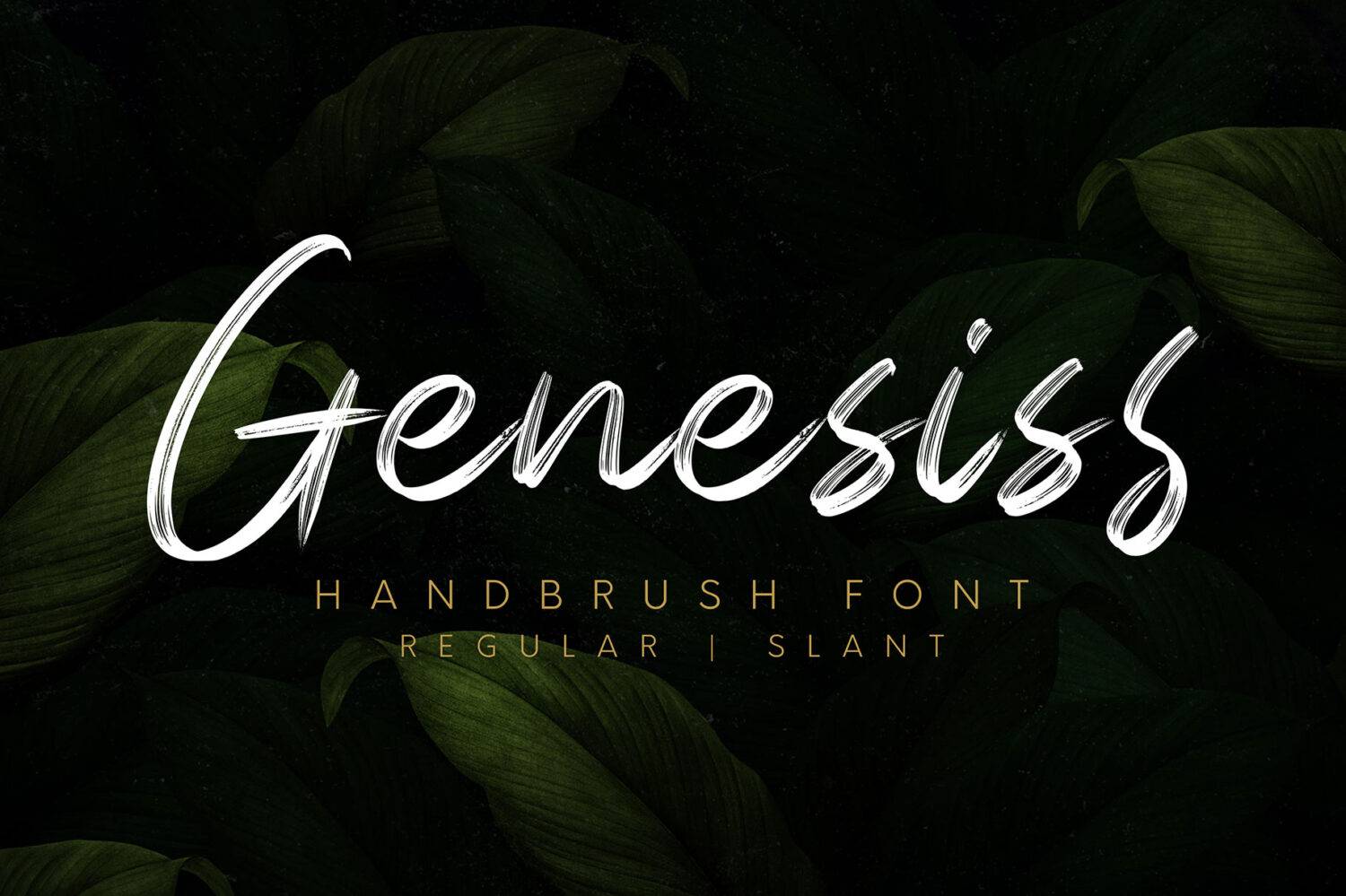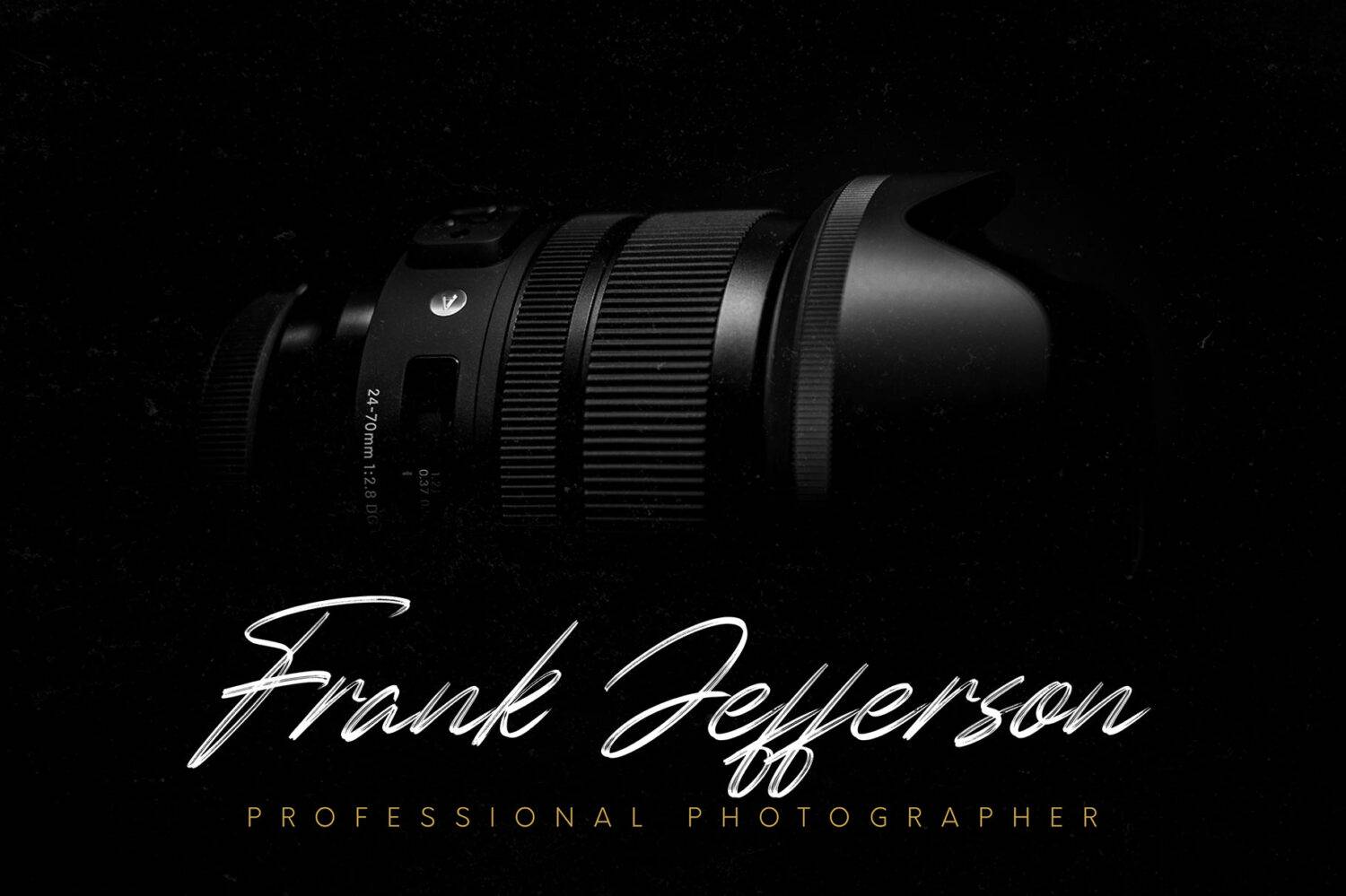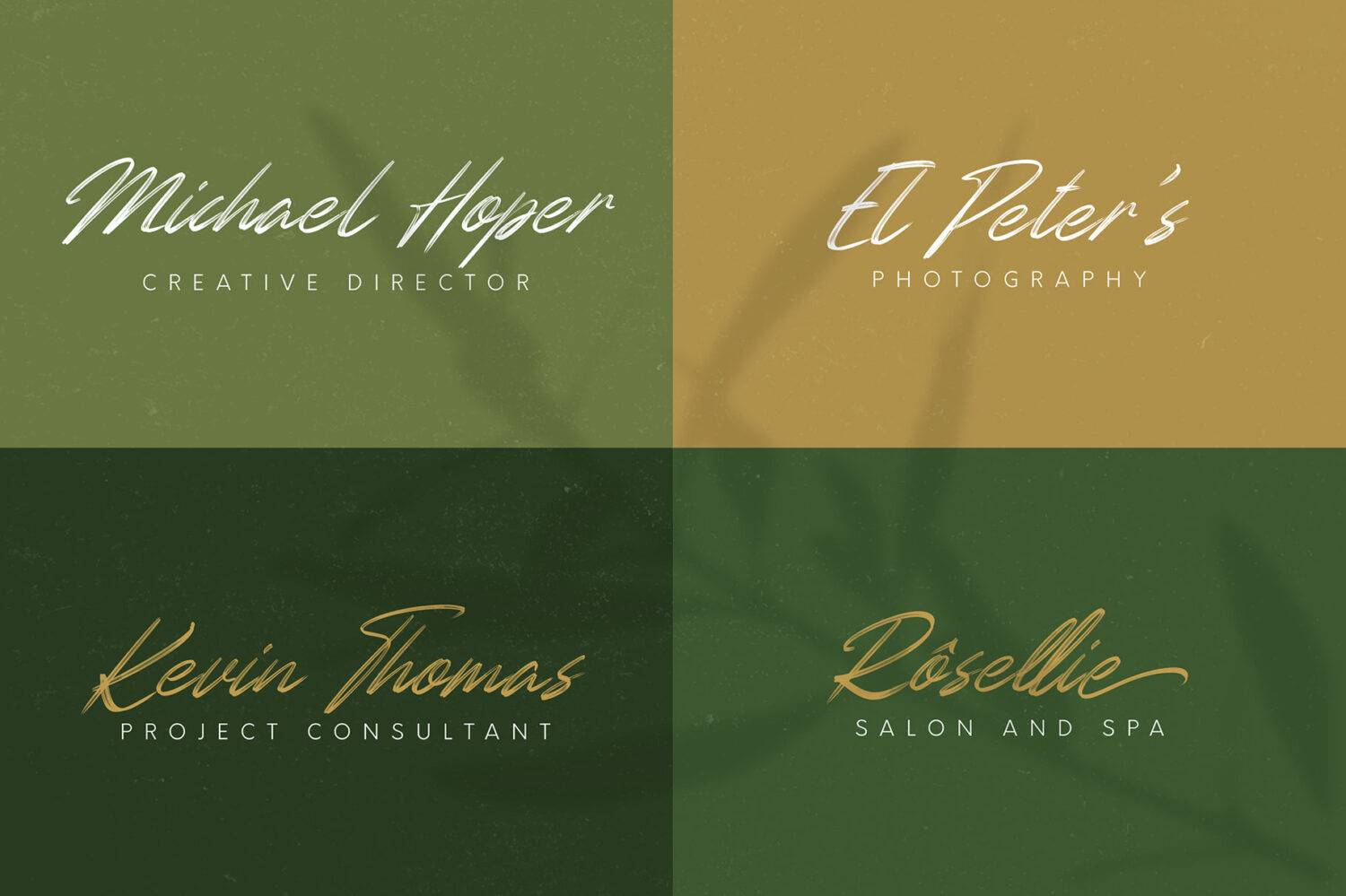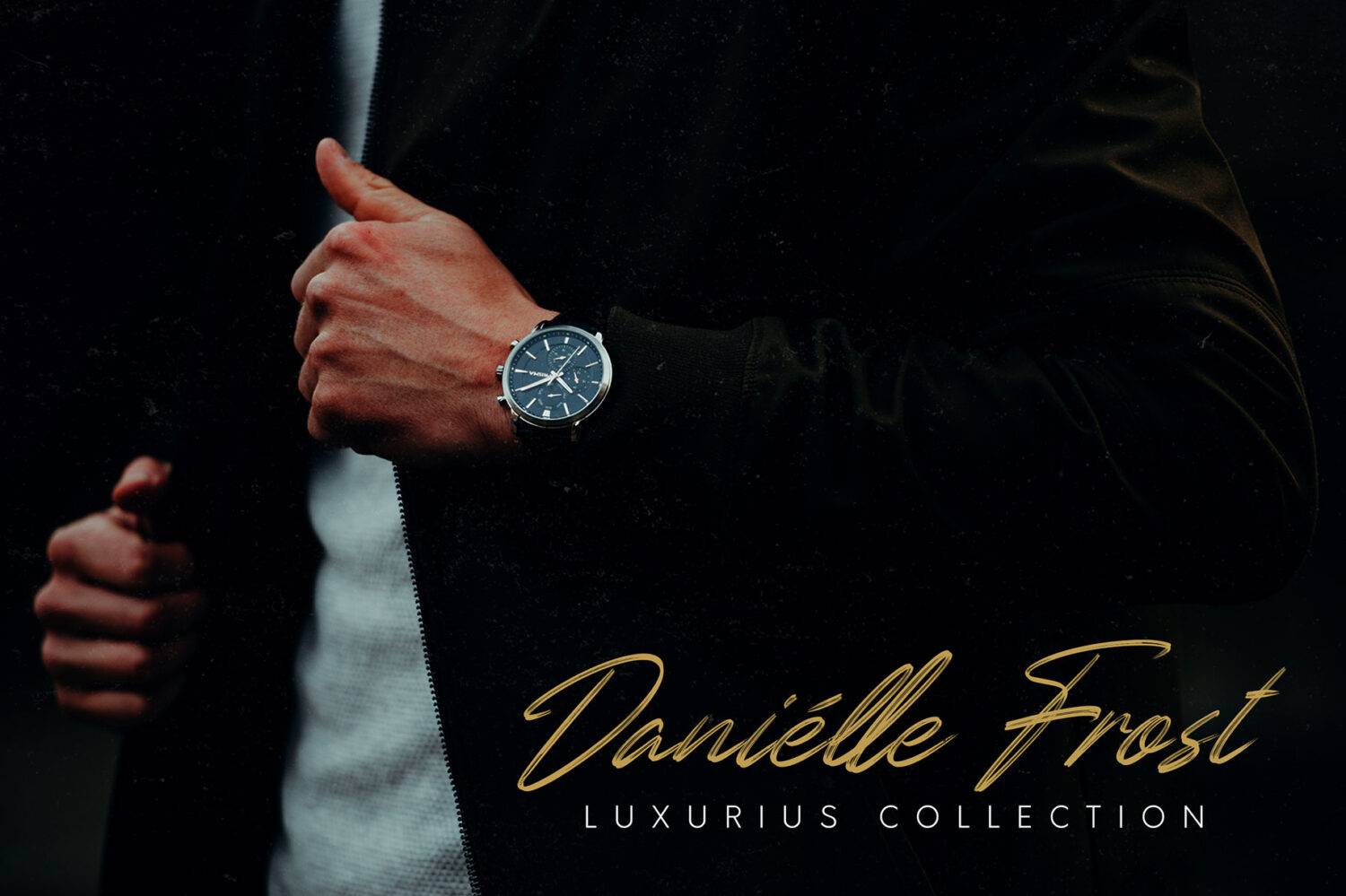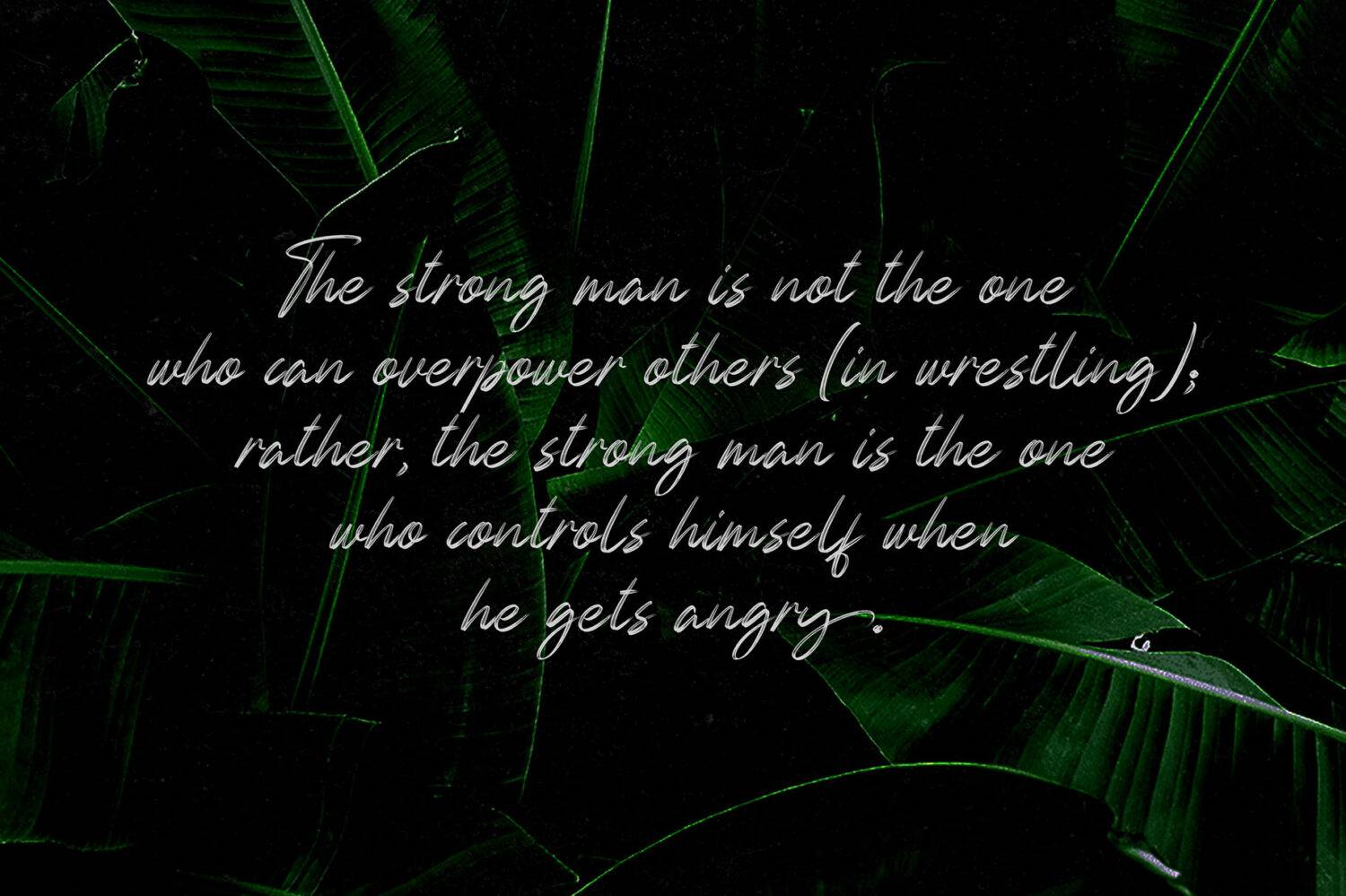
Genesis Font is a lively and elegant script typeface with a natural, hand-drawn feel, featuring fluid and slightly textured strokes that create a sense of movement and personality. Its slender, slanted letterforms work well for creative projects and branding that seeks a modern yet personal touch, making it perfect for invitations, logos, and stylish editorial designs.
Genesis Font
About Genesis Font
| Font family | Genesis Font |
| Release date | 2020-04-28 |
| Designer | Omotu 2020 |